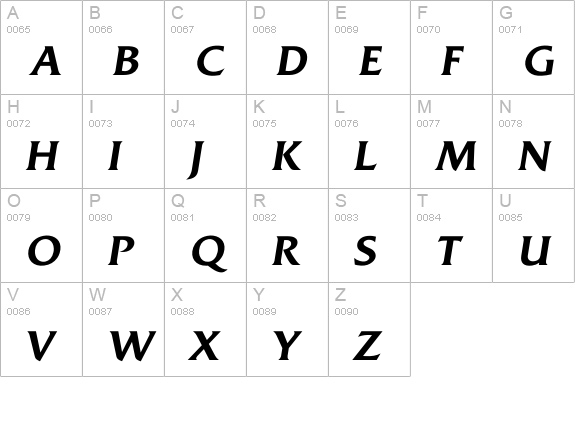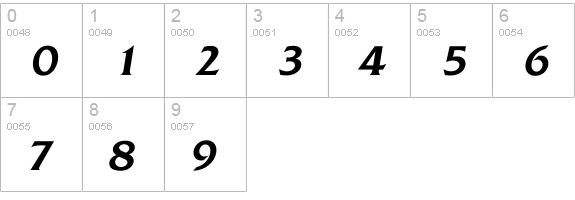
Iquadrat Medium Font Details
Iquadrat Medium is a balanced, medium-weight variant in the Iquadrat typeface family \xE2\x80\x94 well suited to sub-headlines, navigation, and balanced editorial work.
Iquadrat Medium font is a versatile and stylish typeface that strikes the perfect balance between modernity and elegance. Its clean and precise letterforms exude confidence and professionalism, making it an ideal choice for a wide range of design projects. With its medium weight, Iquadrat Medium offers just the right amount of boldness to make your text stand out without overpowering the overall composition. Whether you're working on a logo, a branding project, or even a website, this font will add a touch of sophistication and refinement to your designs. One of the best things about Iquadrat Medium is that it is completely free to download at FontsMarket.com. This means that you can easily access and incorporate this font into your projects without any additional cost. Its availability for free allows designers, students, and professionals alike to enjoy the benefits of this high-quality typeface without breaking the bank. The attention to detail in Iquadrat Medium is evident in its carefully crafted letterforms, which seamlessly blend geometric shapes with subtle curves. This combination creates a harmonious and visually pleasing aesthetic that is both timeless and contemporary. The versatility of Iquadrat Medium is further enhanced by its extensive character set, which includes uppercase letters, lowercase letters, numbers, punctuation marks, and special characters. This comprehensive range ensures that you have all the tools you need to bring your creative vision to life. Whether you're looking to create striking headlines, eye-catching titles, or elegant body text, Iquadrat Medium offers the flexibility and versatility to meet your design needs. Its legibility and readability make it an excellent choice for both print and digital media, ensuring that your message is conveyed clearly and effectively. Embrace the power of Iquadrat Medium font and elevate your designs to new heights. Download it for free at FontsMarket.com and unlock the endless possibilities that this exceptional typeface has to offer.